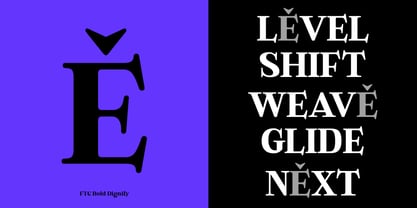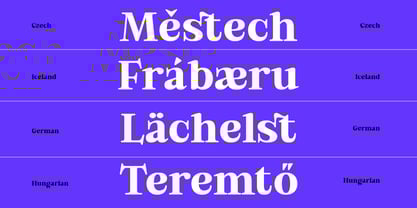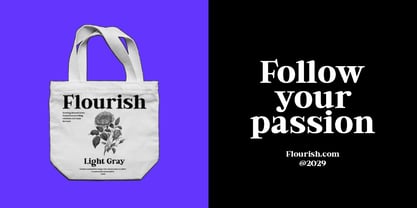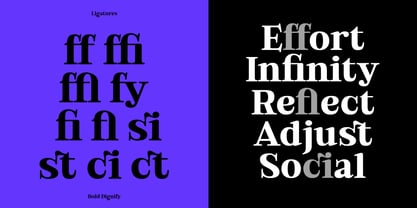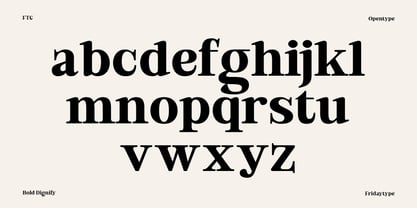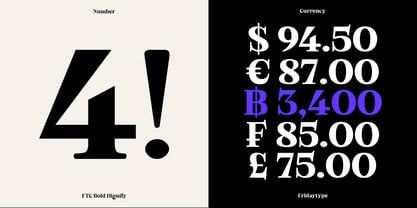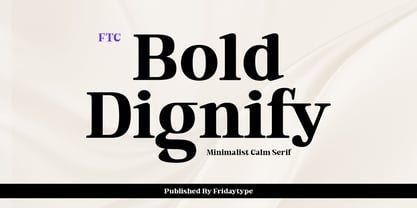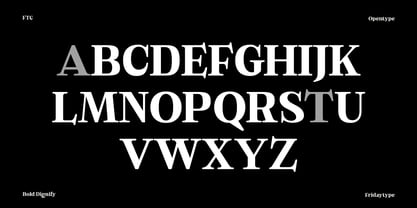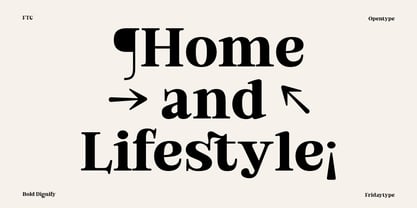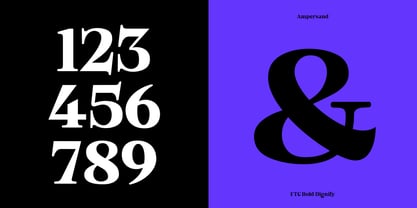
Bold Dignify
The Bold Dignify Font Family was designed by Farida Kurniawan and published by Fridaytype. Bold Dignify contains 1 styles. More about this family
Bold Dignify is a serif font that exudes a bold and confident personality, perfect for impactful headlines. Designed with a clean and minimalistic approach, it strikes a balance between calm elegance and charismatic strength. Its simple yet refined forms make it versatile for modern editorial layouts, branding projects, and other design purposes that demand both clarity and presence. Bold Dignify is the go-to choice for designers looking to convey authority with a touch of understated sophistication.
Feature:
• Lowercase Uppercase
• Numbers & punctuation
• International characters (Multilingual)
• More Arrow
• OpenType Features